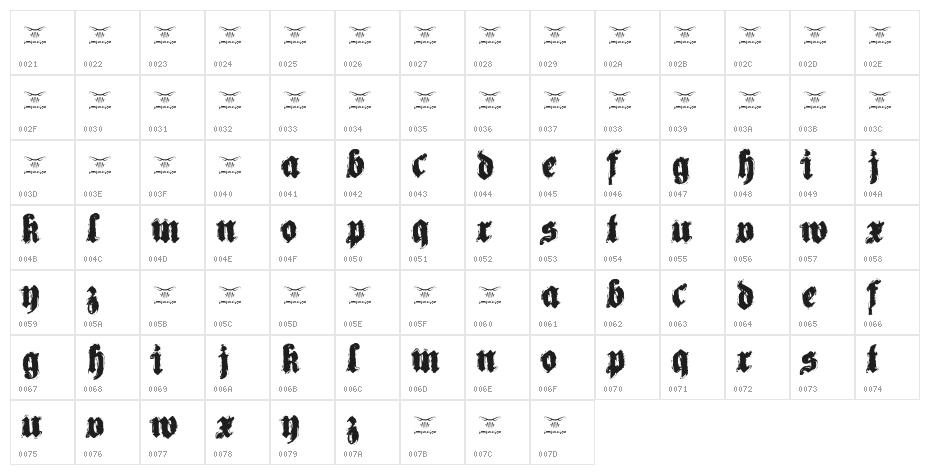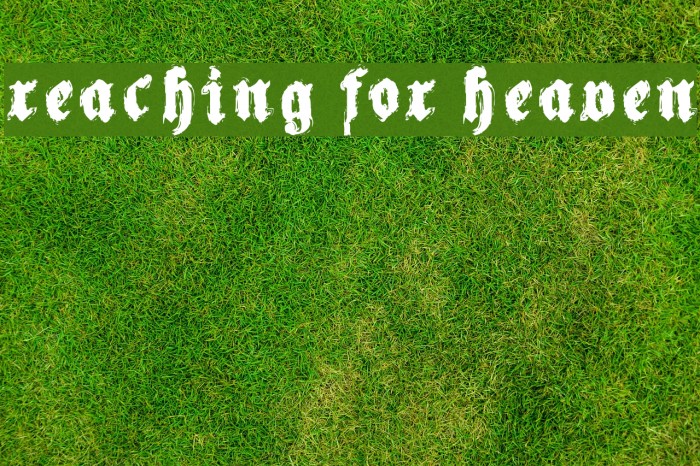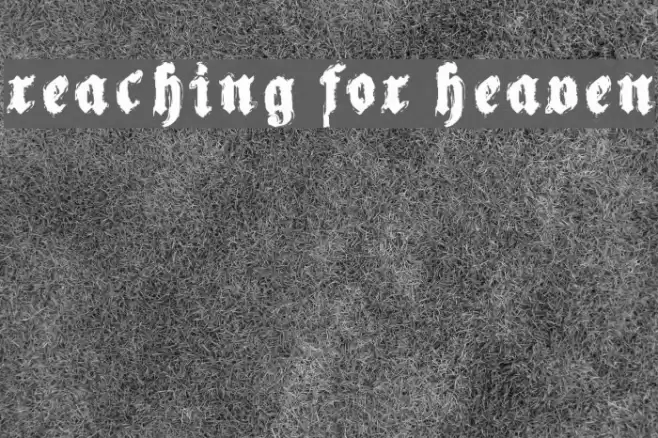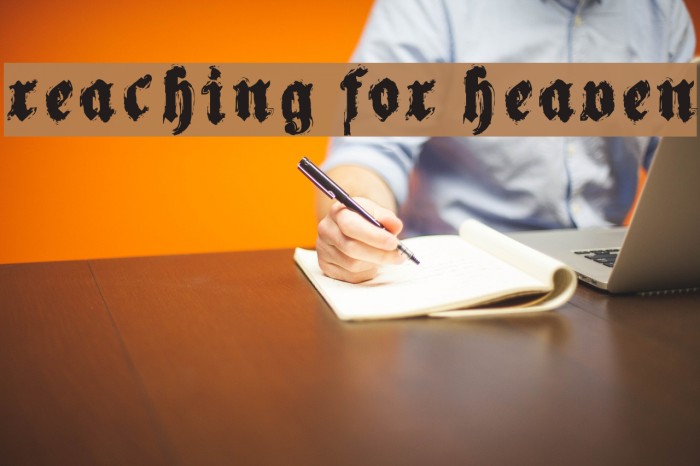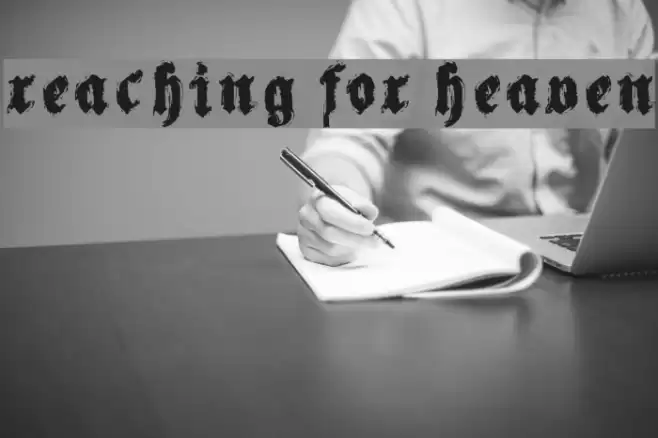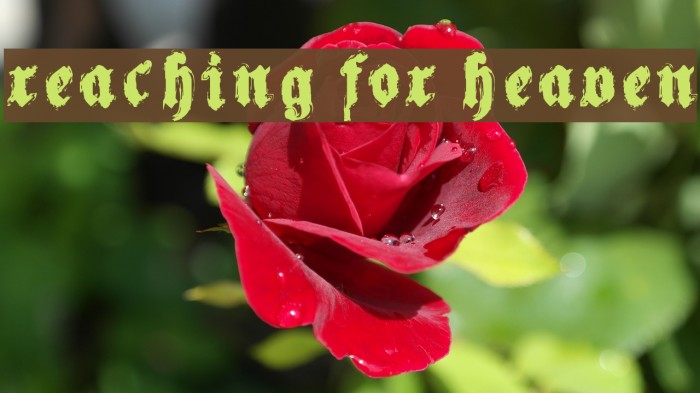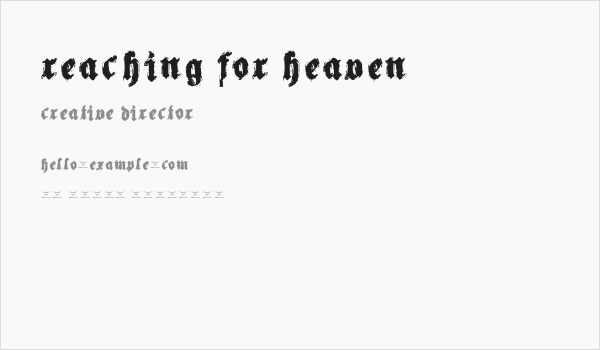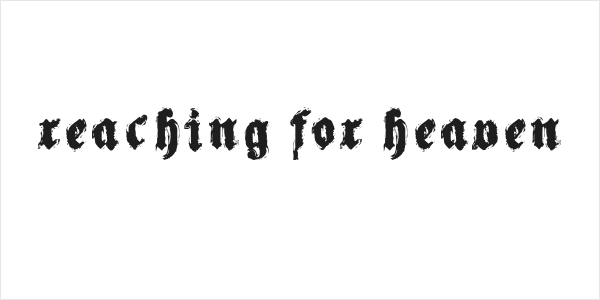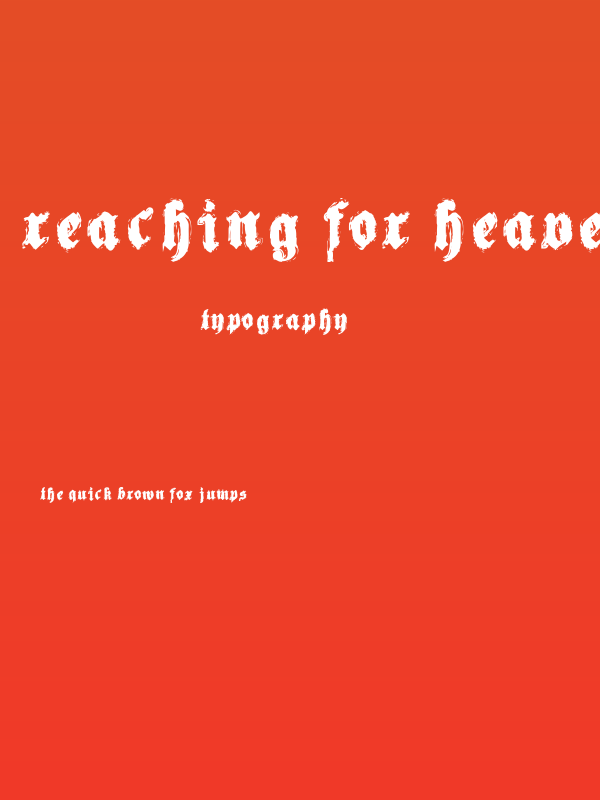
Reaching for Heaven Font
Reaching for Heaven Description
This font features a dramatic and bold blackletter style, characterized by its intricate and ornate design. Each letter is crafted with sharp, angular strokes and embellished with decorative flourishes, giving it a gothic and medieval appearance. The font's heavy weight and high contrast between thick and thin strokes create a striking visual impact, making it ideal for attention-grabbing designs. The overall style is reminiscent of traditional calligraphy, with a modern twist that adds a unique flair. Its detailed and artistic nature makes it suitable for projects that require a touch of elegance and historical depth.
| Overall Style | Gothic, Decorative |
| Proposed Projects | Ideal for use in branding, posters, album covers, and any design requiring a gothic or medieval aesthetic. |